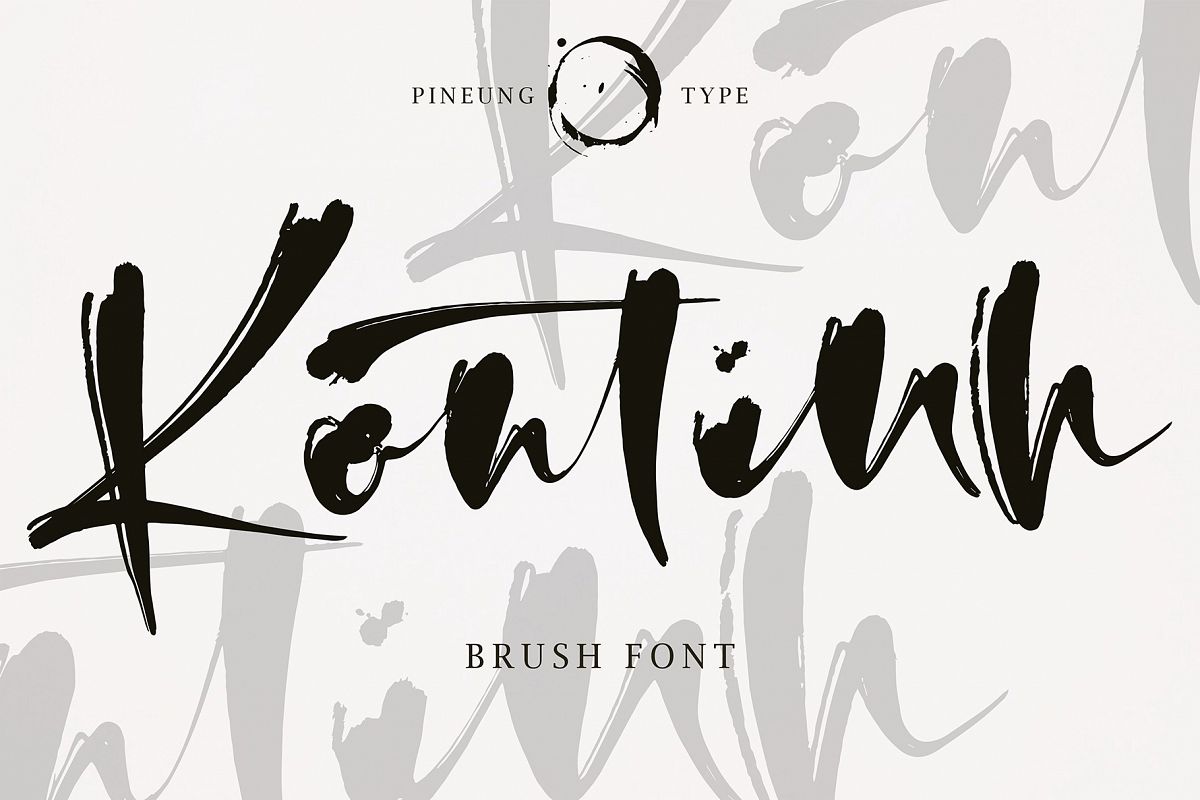
Kontinh
Kontinh-Regular
Kontinh Brush Handwritten font style, this font will perfect for many different project ex: quotes, logo, blog header, poster, banding, fashion, apparel, letter, invitation, stationery, etc...